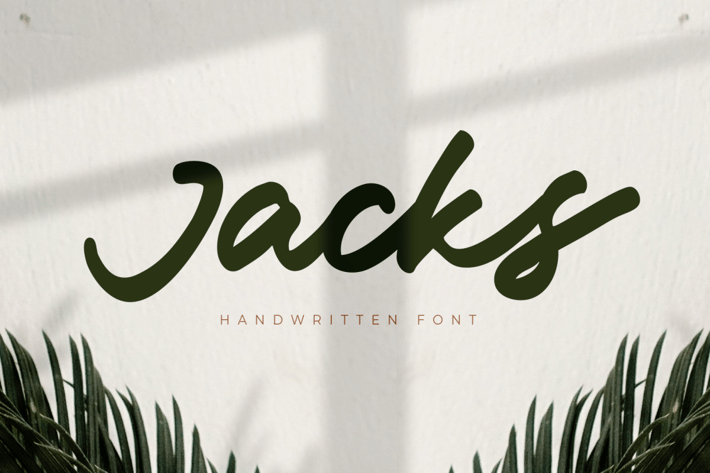
Jacks - Handwritten Font
Jacks is a Handwritten Script Font that's perfect for Headline, Thumbnail or Merchandise. This font specially crafted for your design projects such as banner, poster, flyer, website design, product packaging, merchandise, pillow print and so many more with easy to use but standing out results are so amazing.
Enjoy to Design any your needs with standing out, unique, and authentic feels.